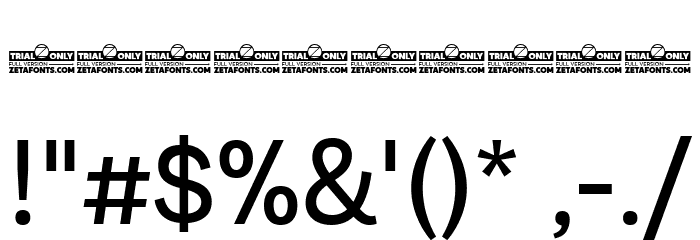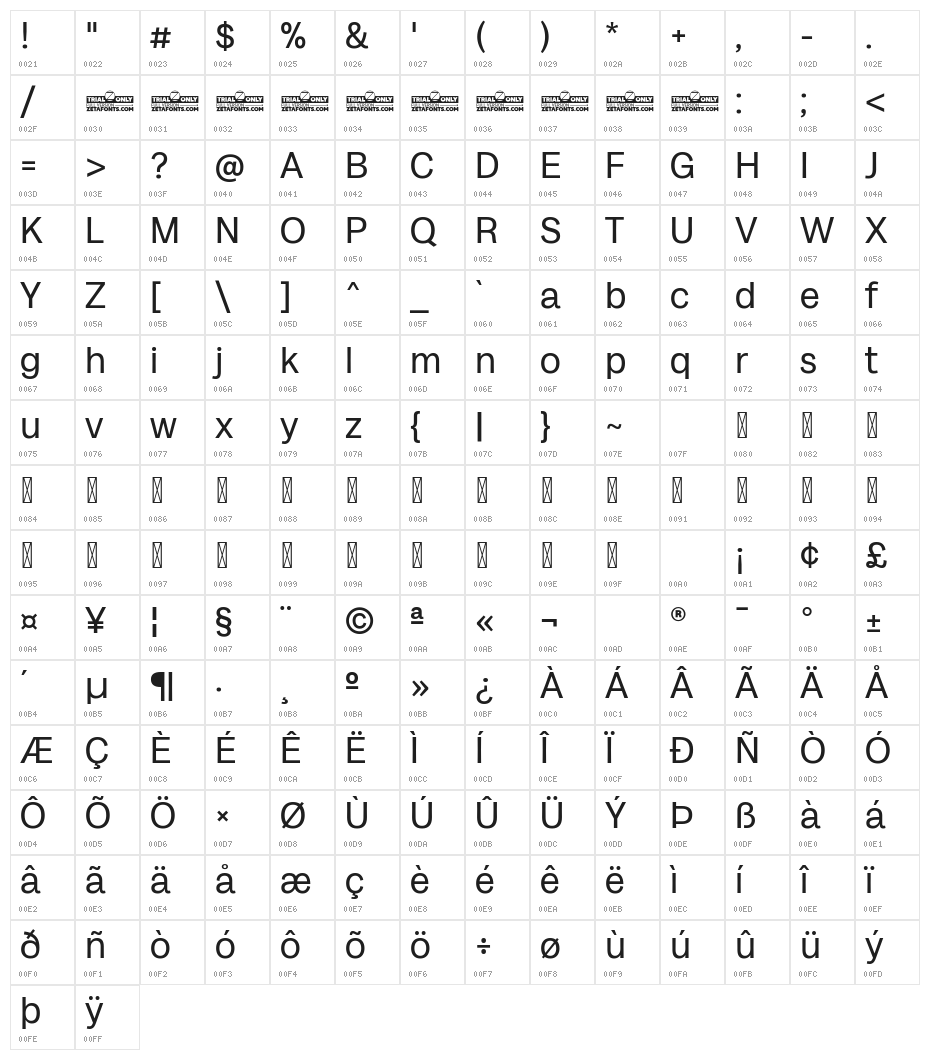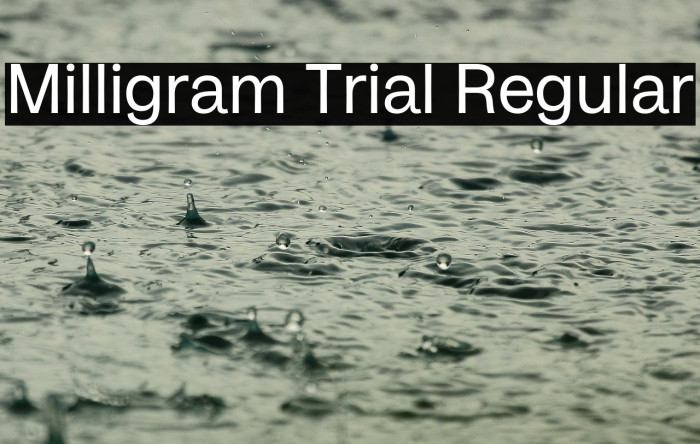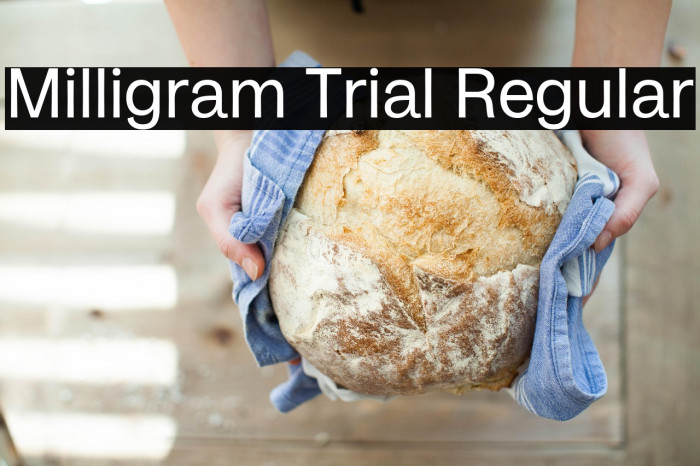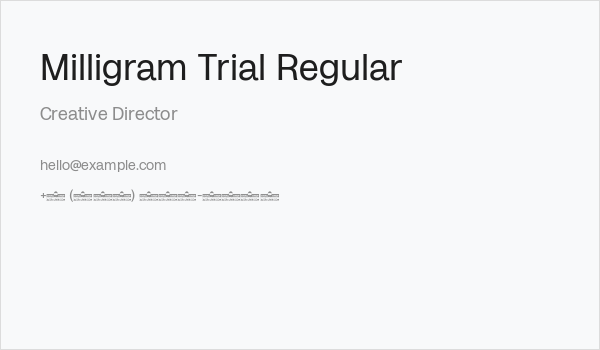
Milligram Trial Regular Font
Milligram Trial Regular Description
This font presents a clean and modern sans-serif style, characterized by its geometric shapes and uniform stroke widths. The uppercase and lowercase letters maintain a consistent height and width, providing a balanced and harmonious appearance. The numerals and special characters are designed with the same attention to detail, ensuring readability and versatility. Its simplicity and clarity make it suitable for a wide range of applications, from digital interfaces to print media. The font's design emphasizes functionality and minimalism, making it an excellent choice for contemporary design projects.
| Proposed Projects | Ideal for web design, user interfaces, branding, and editorial design. |